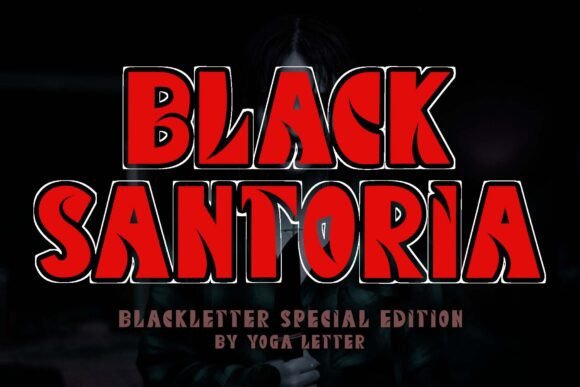
The Elusive Font: My Journey with Black Santoria
I still remember the design project that led me to Black Santoria Font. I was working on a spooky Halloween-themed poster, and my client requested a font that was both elegant and eerie. I scoured the internet, tried countless fonts, but nothing seemed quite right. That was until I stumbled upon Black Santoria. Its unique blackletter style immediately caught my eye, and I knew I had found the perfect fit.
An Honest Review of Black Santoria Font
- ✨ Elegant and Unique Design: Black Santoria’s blackletter style is both sophisticated and eye-catching.
- ✅ Multilingual Support: This font supports multiple languages, making it perfect for global designs.
- ✅ Comprehensive Character Set: It includes capital letters, lowercase letters, numbers, punctuation, and more.
While Black Santoria is an excellent font, there are a few things to keep in mind:
- ⚠️ Legibility at Small Sizes: Like many blackletter fonts, Black Santoria can be tricky to read at very small sizes.
- 🤔 Stylistic Limitations: Some users might find the font’s style too ornate for certain projects.
The Designer Inspiration Behind Black Santoria
Black Santoria was inspired by traditional European blackletter fonts, with a modern twist. Its designer aimed to create a font that was both elegant and versatile, suitable for a wide range of design projects. From holiday-themed posters to luxury branding, Black Santoria’s unique style is sure to make your designs stand out.
Q: What type of projects is Black Santoria best suited for?
A: Black Santoria is perfect for logos, banners, business branding, stickers, posters, prints, Christmas, Halloween, fall, holidays, travel, and more.
Q: Does Black Santoria support multilingual characters?
A: Yes, Black Santoria supports multiple languages, making it a great choice for global designs.
Q: Is Black Santoria difficult to read at small sizes?
A: Like many blackletter fonts, Black Santoria can be challenging to read at very small sizes. It’s best used at larger sizes for optimal legibility.